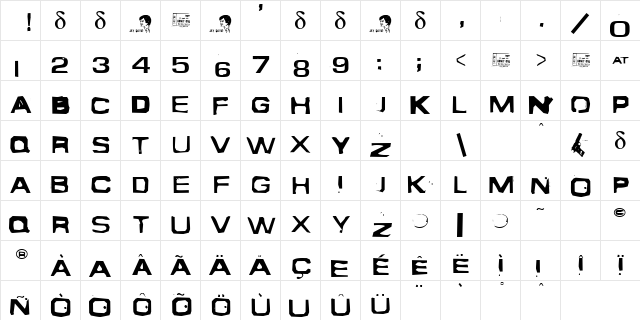
Shortwave Regular
Design Context for Shortwave Typeface
Shortwave is a composed and adaptable typeface that performs quietly and consistently across a wide range of design contexts.